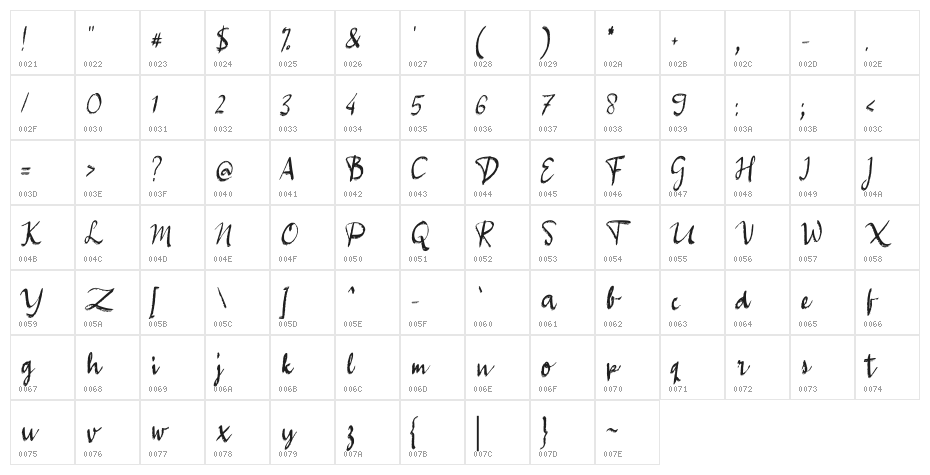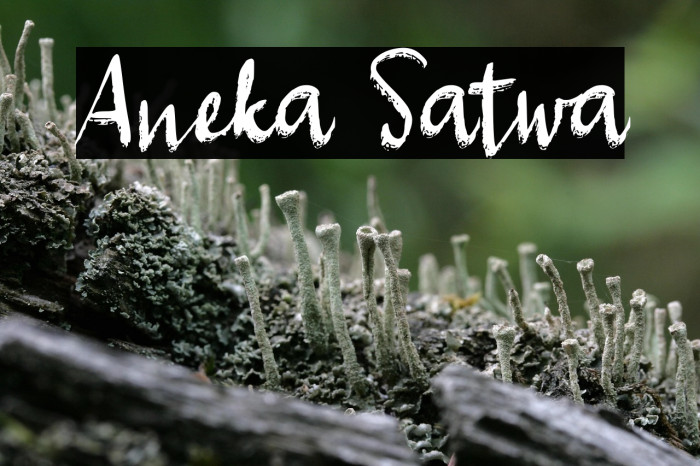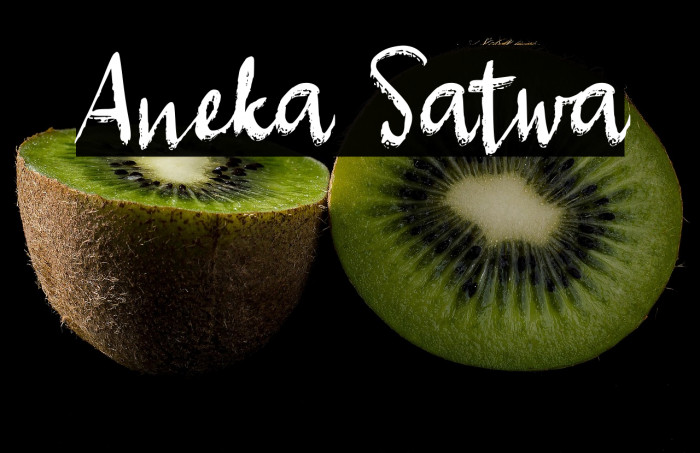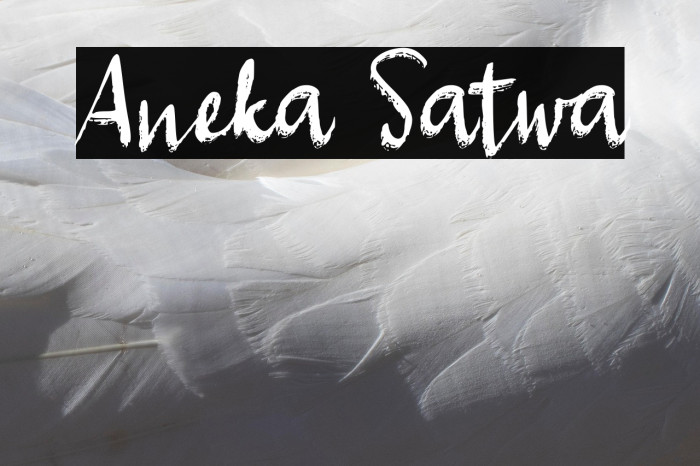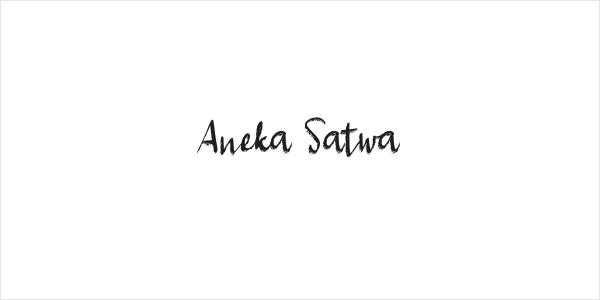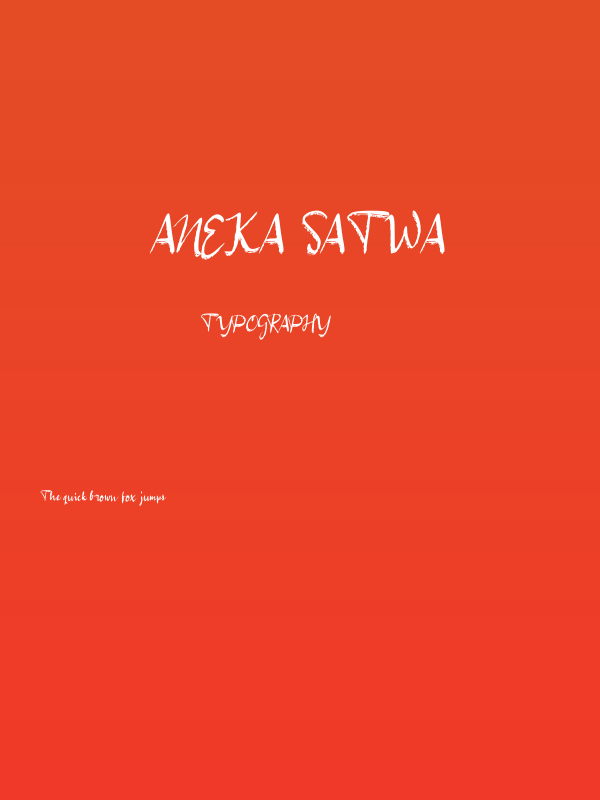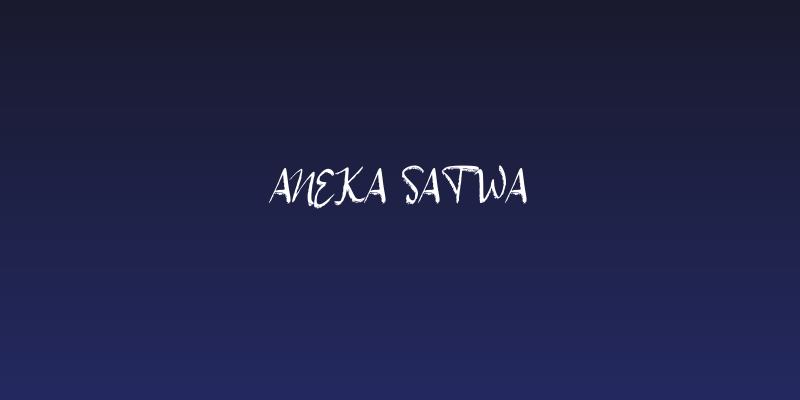
Aneka Satwa Font
Aneka Satwa Description
This font features a dynamic and expressive brush script style, characterized by its bold, sweeping strokes and textured appearance. The uppercase letters are tall and slightly slanted, giving a sense of movement and energy. Lowercase letters maintain a consistent flow, with some characters extending below the baseline, adding to the font's lively nature. The numerals are equally expressive, with a playful yet sophisticated look. Special characters are uniquely styled, maintaining the overall artistic flair. This font's textured, hand-painted effect makes it stand out, perfect for projects that require a personal and artistic touch.
| Proposed Projects | Ideal for branding, packaging, posters, and invitations where a personal, artistic touch is desired. |